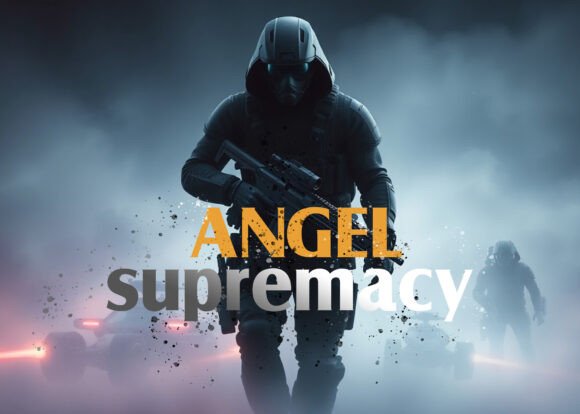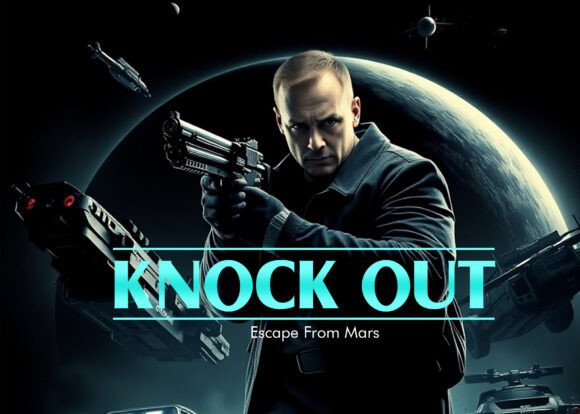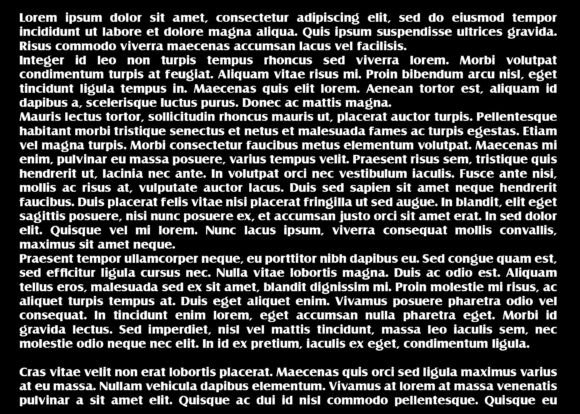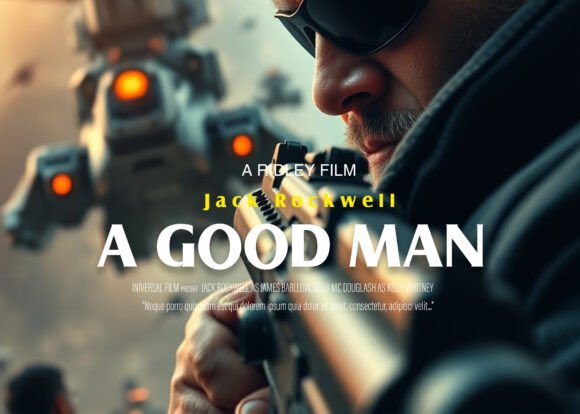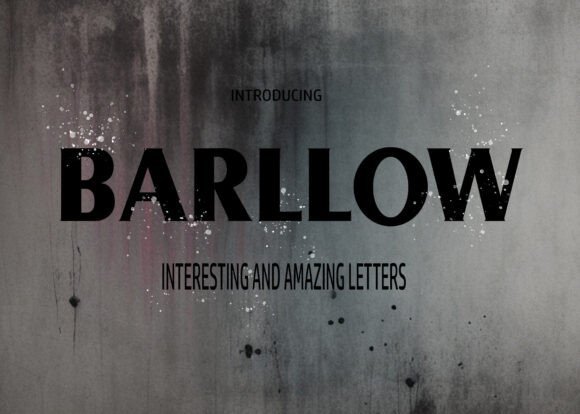
Stand Out with Style: Introducing the Barllow Font
Have you ever stared at a blank canvas, trying to conjure up the perfect design to capture attention? You know, that moment when inspiration strikes, and you envision a bold, eye-catching creation that leaves a lasting impression? That’s exactly what the Barllow Font is all about – making your designs stand out and command attention.
This powerful font is perfect for designers who want to add a touch of audacity and spirit to their work. Whether it’s a book cover, magazine cover, movie title, t-shirt, or billboard, the Barllow Font is sure to make your design pop. With its bold look, it’s the perfect tool for anyone who wants to make a statement and leave a lasting impression.
Barlow Font Key Features
- Font Family: Barlow is a sans-serif font family designed by Kyle Heller, with various weights and styles available.
- Size: Barlow Font comes in 8 weights, ranging from Thin to ExtraBold, allowing for a wide range of design applications.
- Resolution: Barlow Font is optimized for use at high resolutions, making it ideal for digital and print media.
- Unique Characteristics: Barlow Font features a clean and modern design with a subtle rounded edge, giving it a friendly and approachable feel.
Barllow Font Review
As a designer, I was excited to dive into the Barllow font and see what it has to offer. ✨ One of the things that stands out to me is the unique, modern aesthetic of the font. It has a certain “techy” feel to it that I think would be perfect for designs related to technology or innovation.
Another strength of the Barllow font is its versatility. It works well in both headline and body copy, making it a great choice for a wide range of design applications. ✨ I also appreciate the variety of weights and styles available, which gives designers a lot of flexibility when it comes to choosing the perfect font for their project.
- ⚠️ While the Barllow font is modern and stylish, it may not be the best choice for designs that require a more traditional or elegant feel. The font’s bold, futuristic look may be too much for certain applications.
- ⚠️ I also found the font to be a bit overused in certain design circles, which may make it harder to stand out in a crowded design landscape.
Overall, I think the Barllow font is a solid choice for designers looking for a modern, tech-savvy font. While it may have some limitations, its unique aesthetic and versatility make it a great addition to any designer’s toolkit.
Some tips for getting the most out of the Barlow font include using it in conjunction with clean and modern designs, experimenting with different font sizes and colors, and using it to create custom logos and typography-based designs. Common use cases for the Barlow font include creating social media graphics, branding materials, and professional-looking documents and presentations.